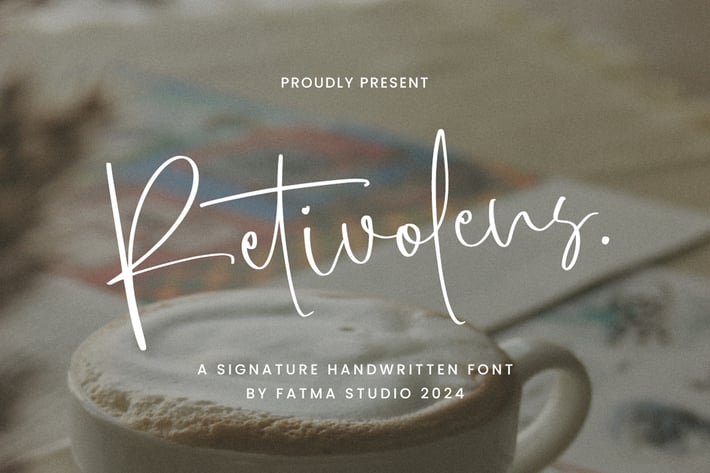
Retivolens - Signature Font
Retivolens is a signature-style font that combines elegance with a touch of sophistication. It features smooth, flowing strokes and fluid letterforms that mimic the natural movement of a handwritten signature. Typically, such fonts are characterized by their cursive, connected letters, which lend a personal and authentic feel to any design.
Retivolens may have a slightly ornate or embellished style, making it suitable for high-end branding, invitations, or any project that requires a touch of class and individuality. Its legibility and graceful curves make it versatile for both formal and informal contexts. Whether used for a logo, a wedding invitation, or a signature line, Retivolens brings a refined, artistic touch to the text.
Ligatures, Swash, Alternates
Letters, Numbers, punctuation